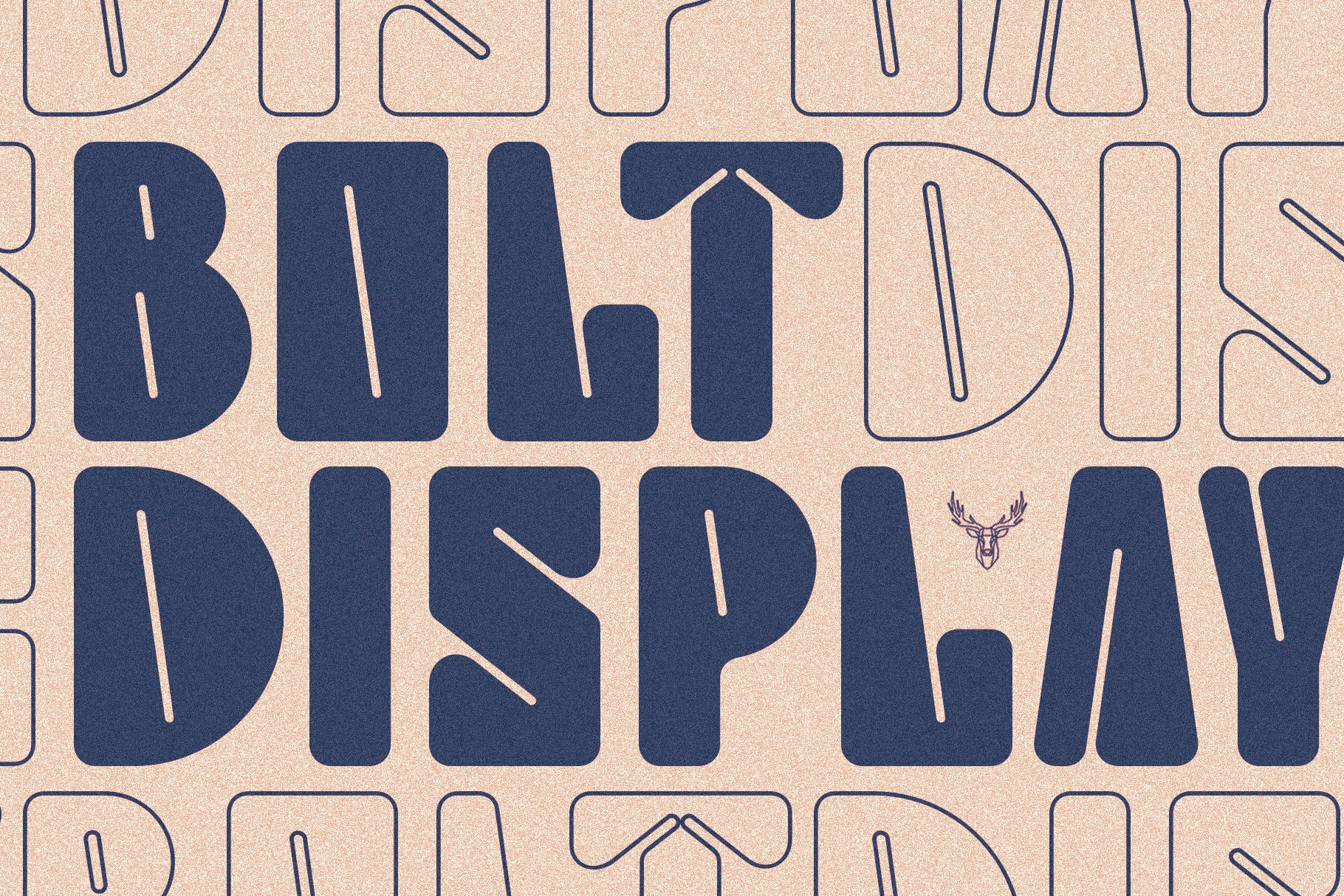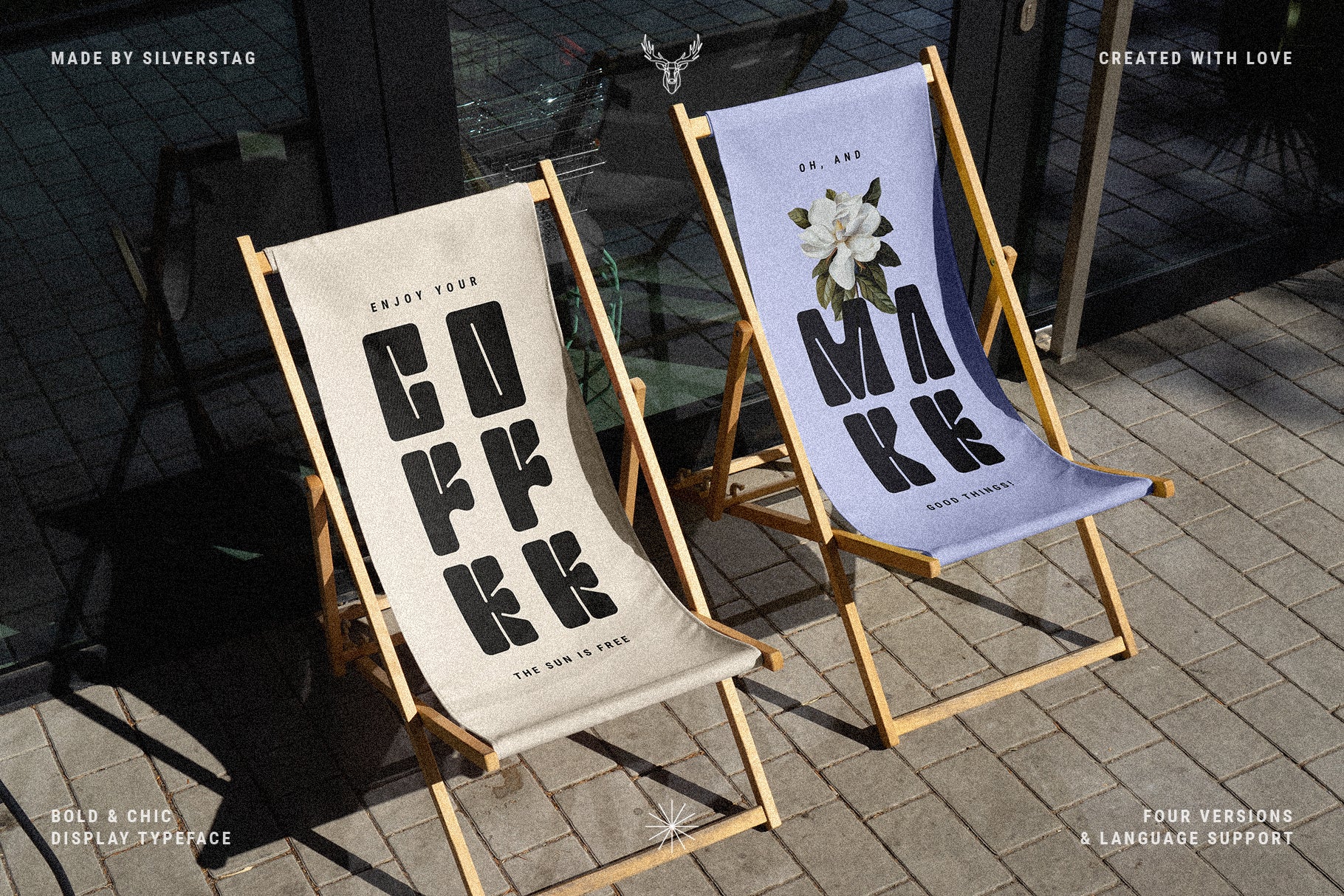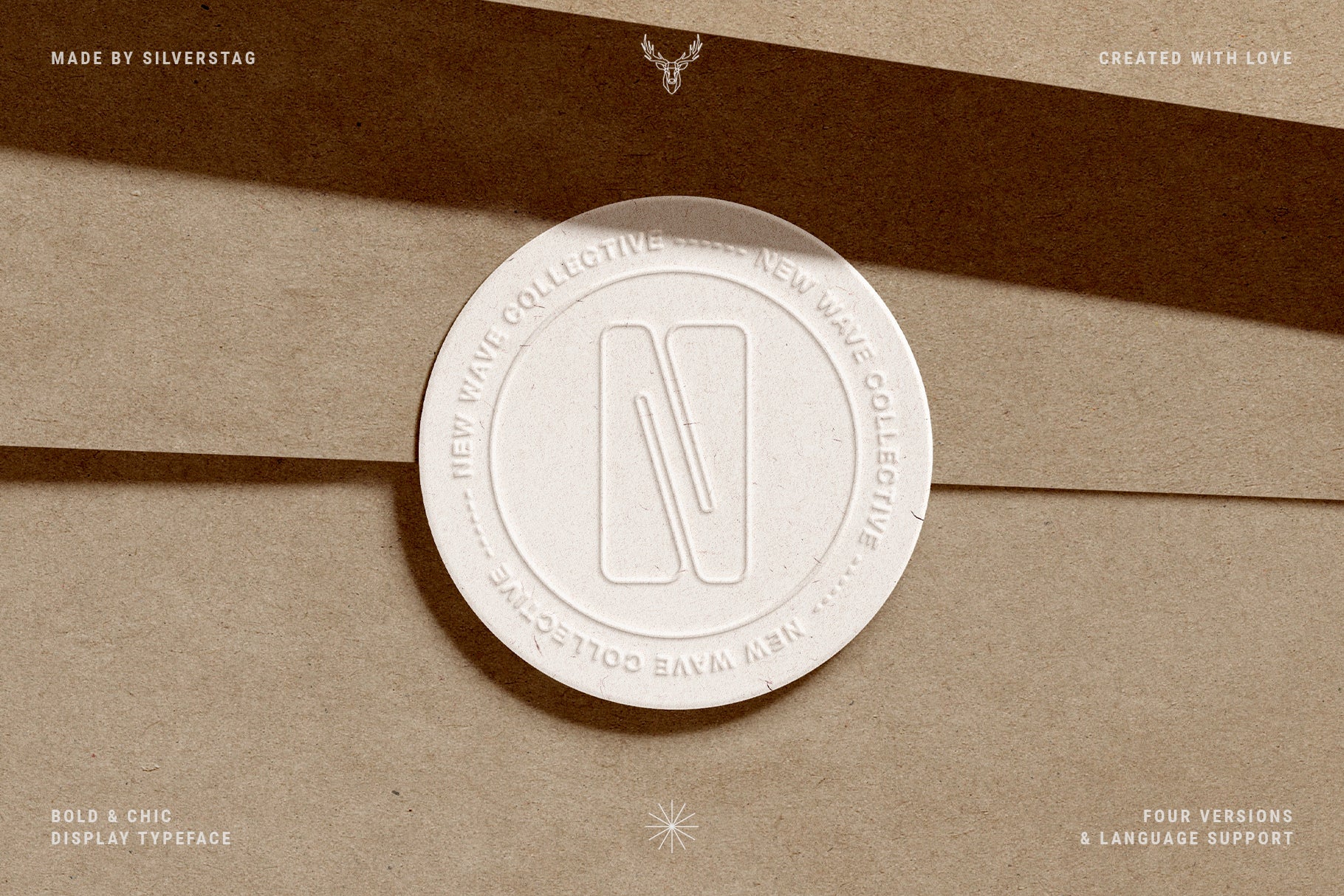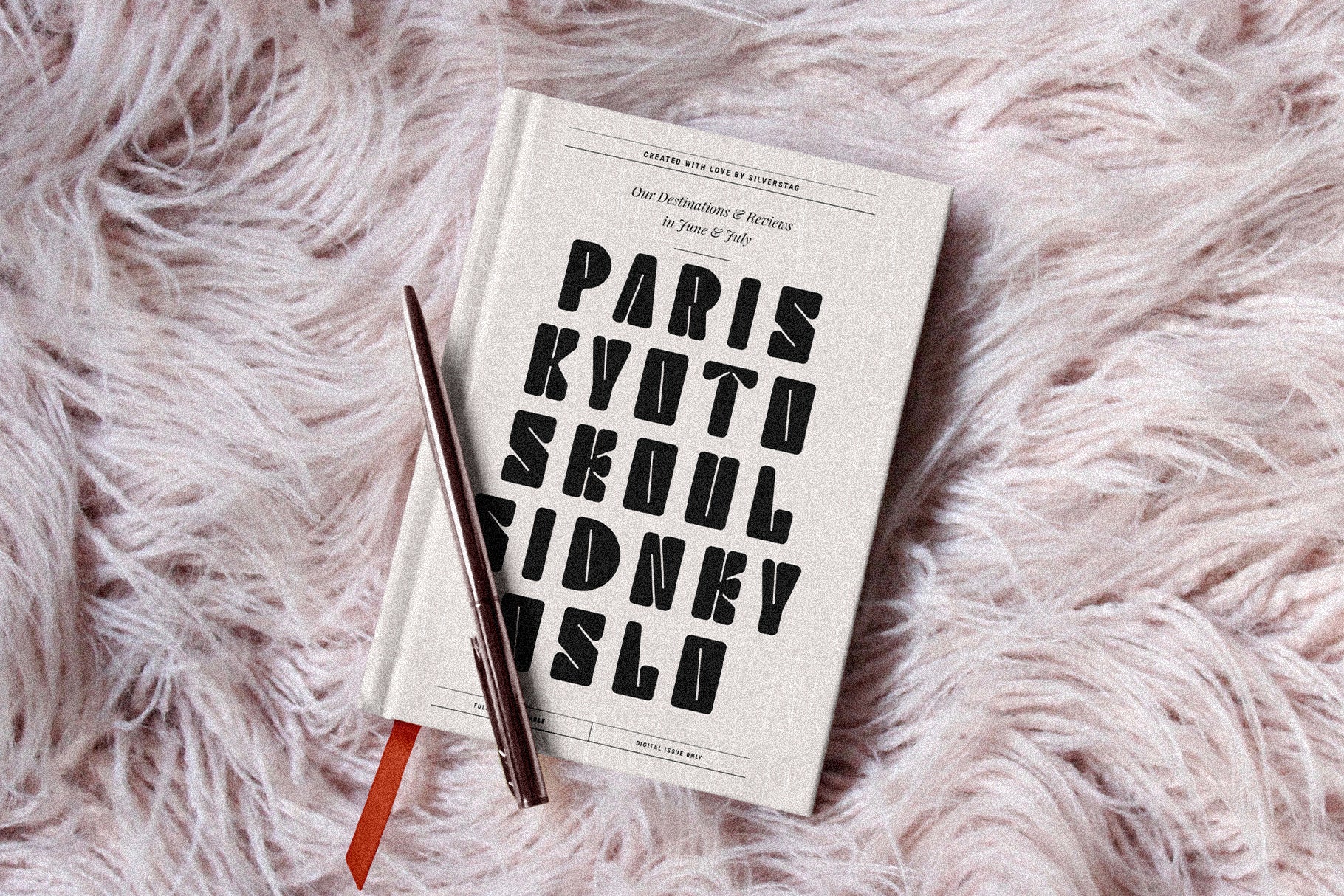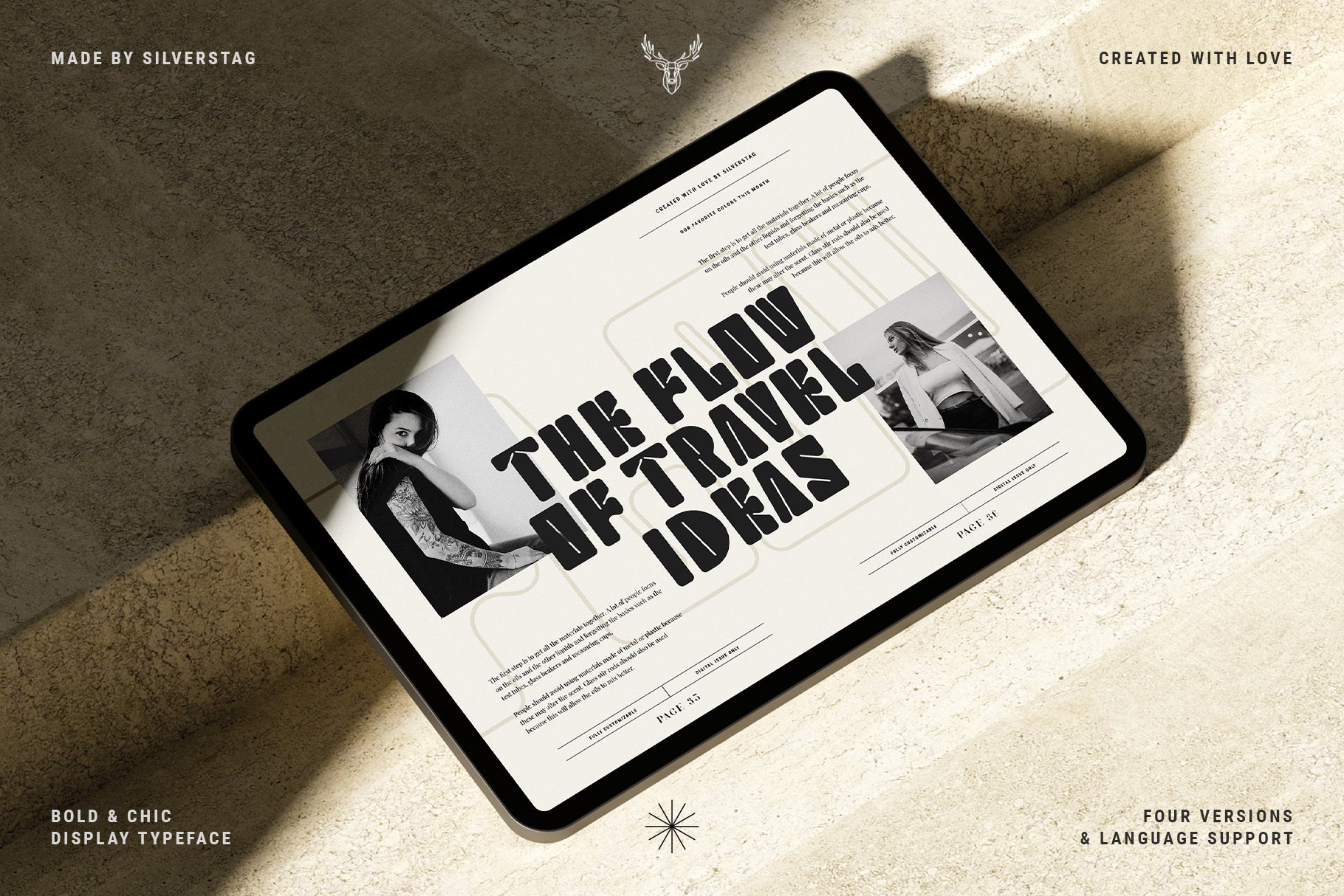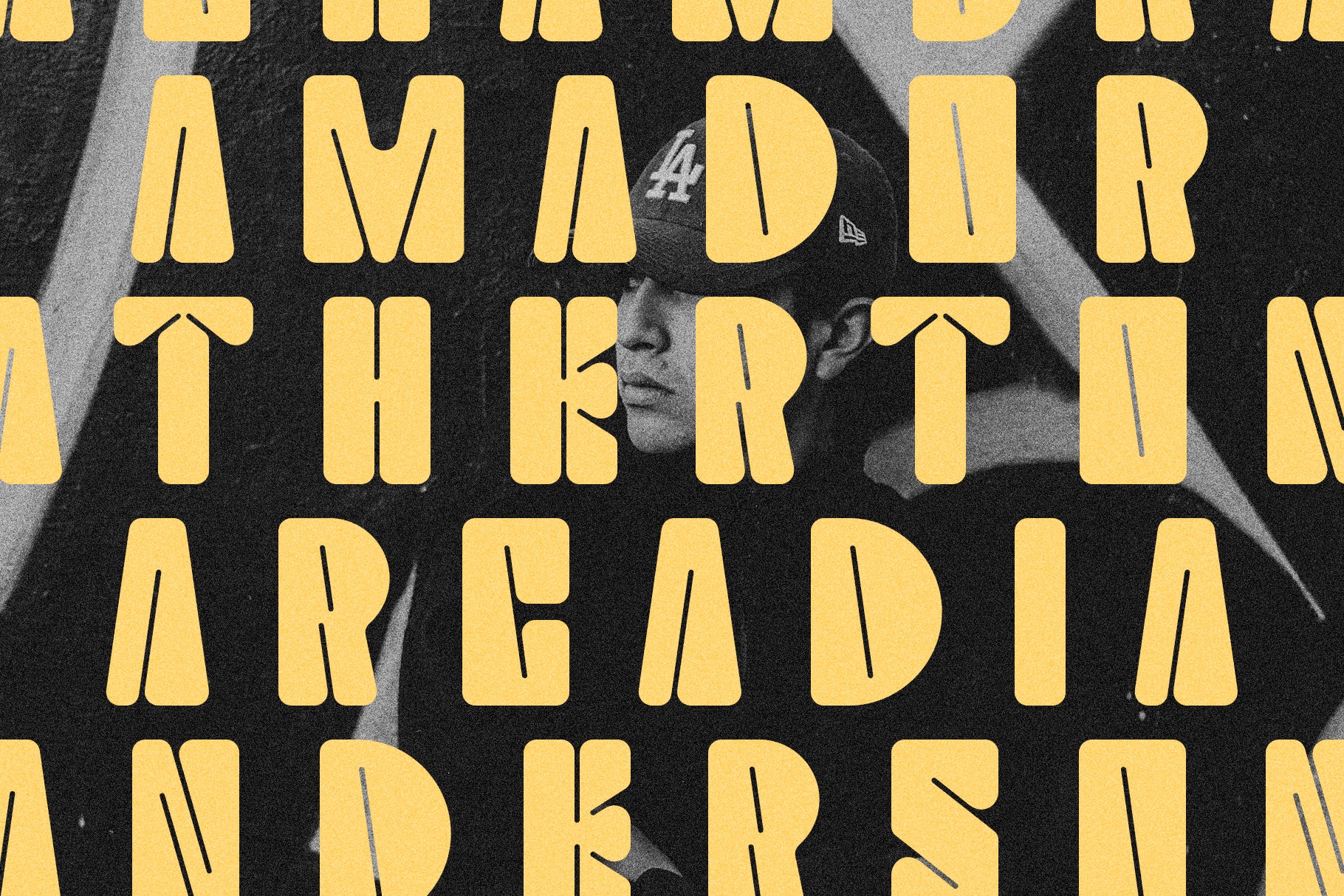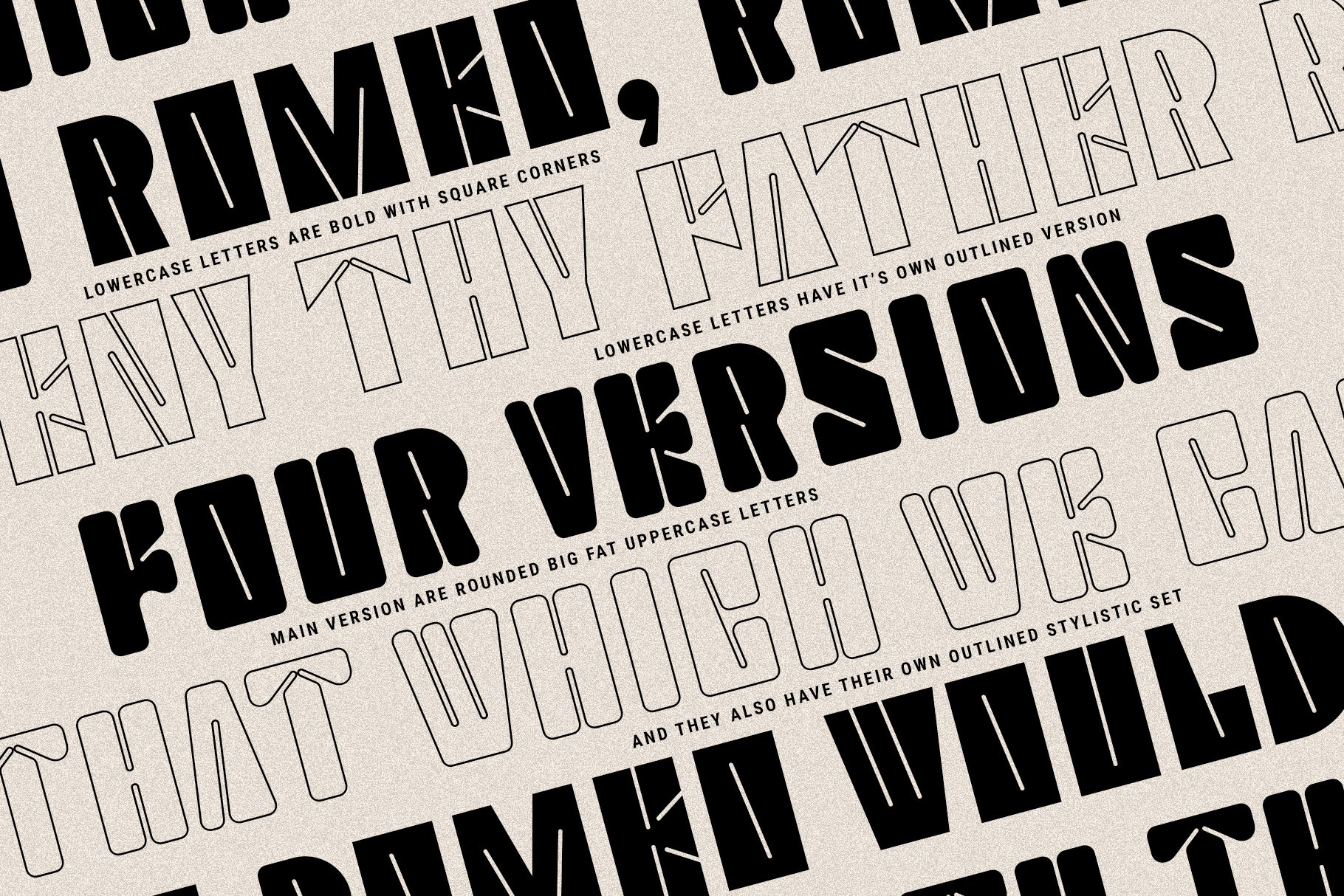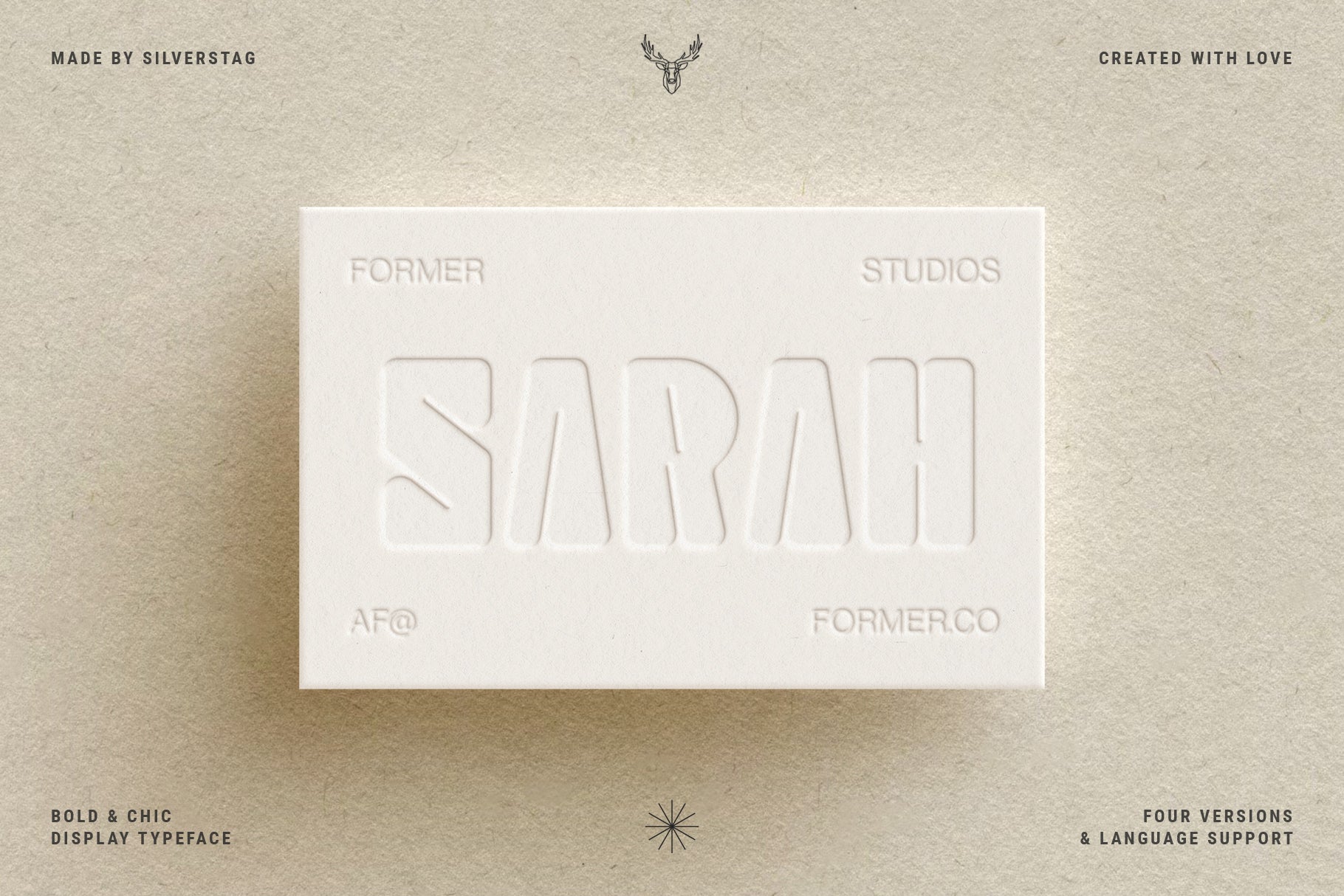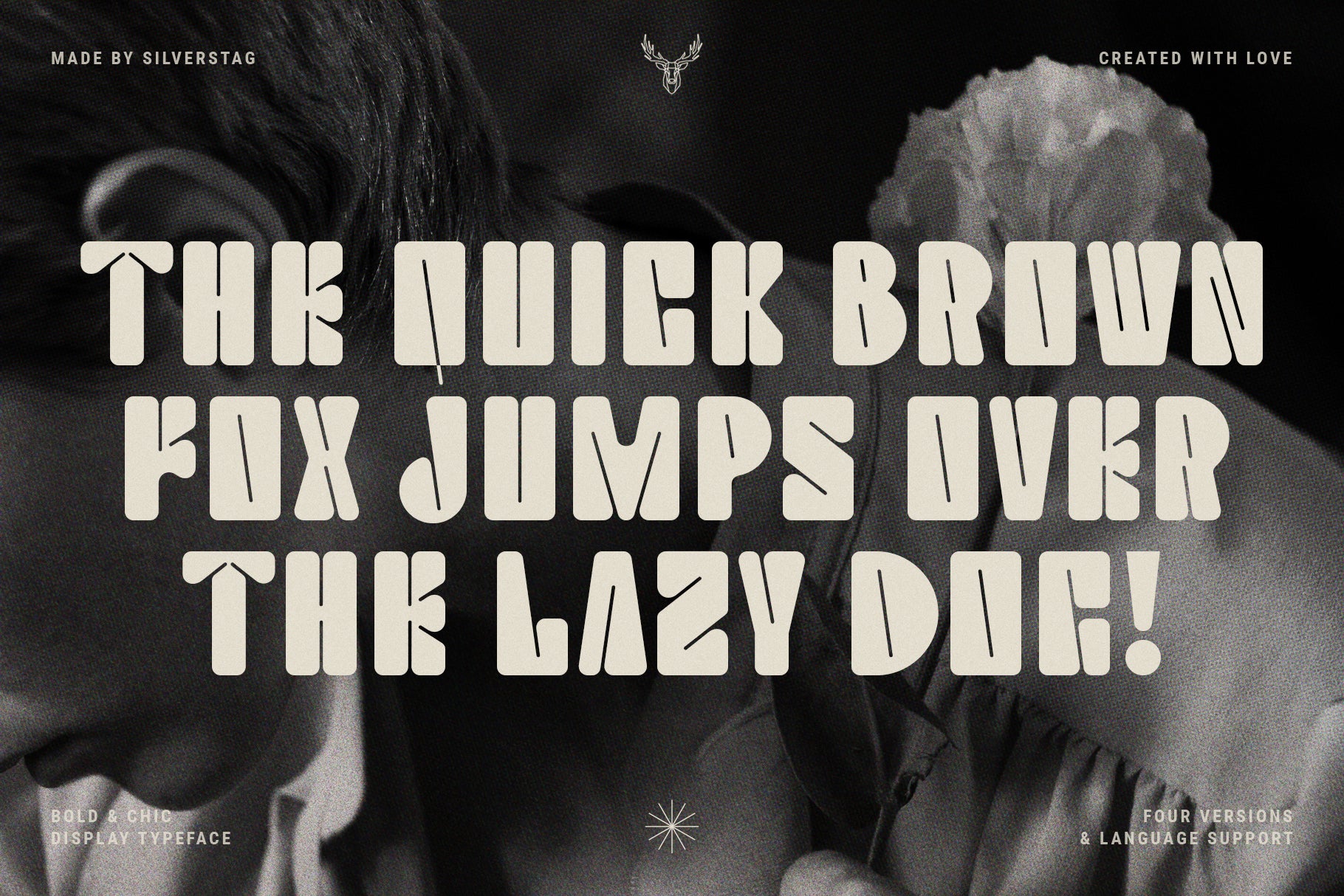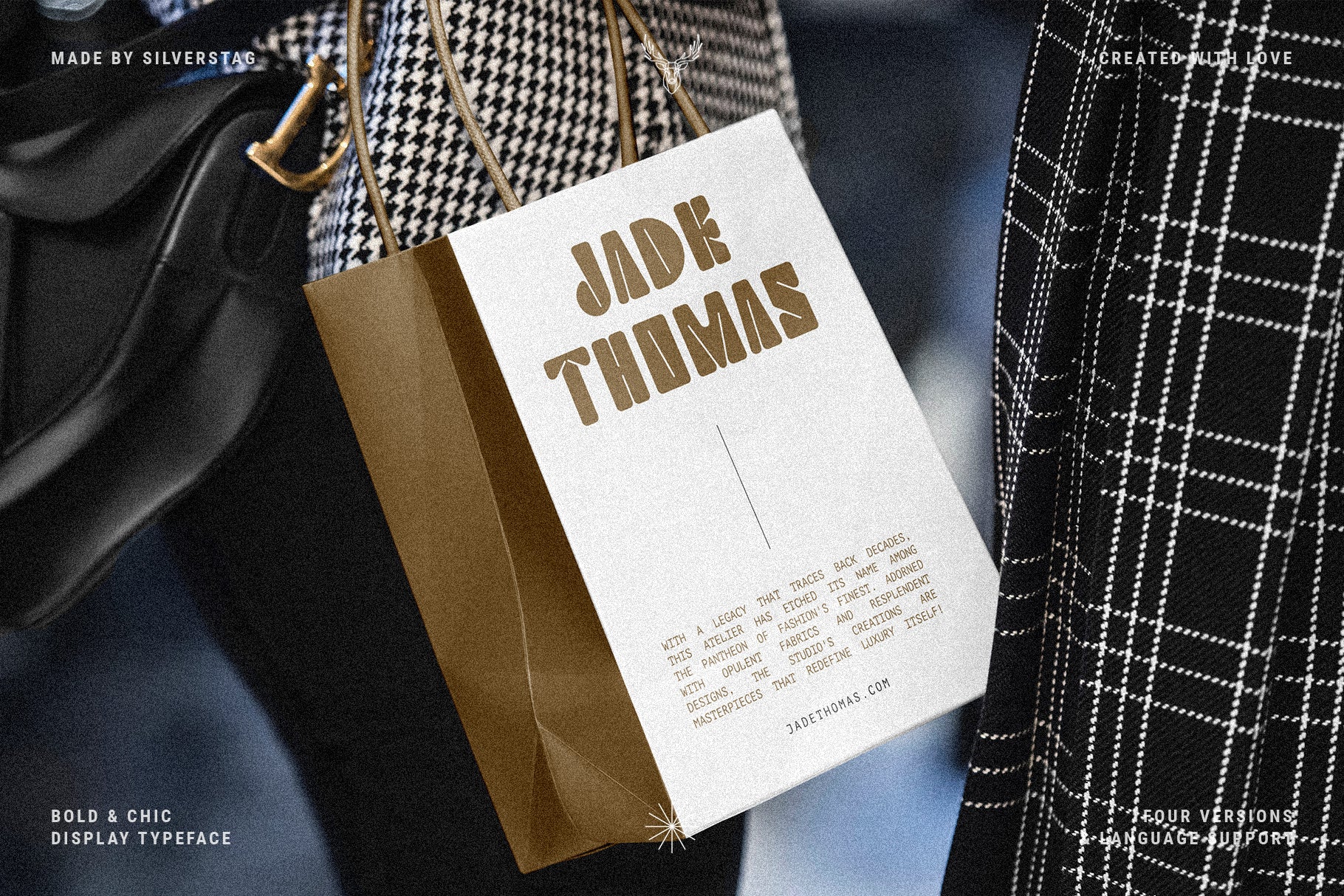
• Bolt Display rounded bold sans hero — "BOLT DISPLAY" in navy caps on a peach textured background with ghosted outlined lettering behind, introduced as a bold display typeface.
• Two deckchairs set in Bolt Display outside a cafe — a cream seat reading "Enjoy your coffee, the sun is free" and a lilac seat reading "Oh, and make good things" with a magnolia graphic — outdoor branding mockup.
• Embossed circular paper seal reading "New Wave Collective" around a large N monogram, set in Bolt Display on kraft paper — branding mockup.
• "Book Club" set in cream Bolt Display caps over an open book with an orange, with "Organized by Claire, Estd 2018" details — book club branding mockup.
• Travel journal on a blush fur rug with a pen, its cover stacking "Paris, Kyoto, Seoul, Sidney, Oslo" in black Bolt Display — book cover mockup.
• Tablet on stone showing an editorial layout headed "The Flow of Travel Ideas" in black Bolt Display, with black-and-white photos — digital mockup.
• Surnames "Amador, Atherton, Arcadia, Anderson" tiled in yellow Bolt Display over a black-and-white photo of a man in a baseball cap — type specimen.
• Bolt Display four-version specimen — a "Romeo, Romeo" Shakespeare quote in filled and outlined caps, annotated to show the main rounded set and its outlined stylistic set.
• Embossed business card reading "Former Studios, Sarah" set in Bolt Display on a cream textured surface — branding mockup.
• The pangram "The quick brown fox jumps over the lazy dog!" set in cream Bolt Display caps over a black-and-white photo — type specimen.
• "Film Makers" set in cream Bolt Display over a moody photo of a man operating a film camera — poster mockup.
• Kraft paper shopping bag printed "Jade Thomas" in gold Bolt Display, hanging against a houndstooth garment — retail packaging mockup.
• "Flow" repeated in navy Bolt Display, filled and outlined, over a black-and-white photo of two dancers against a wall — type-as-texture layout.
• "Skin" repeated in cream Bolt Display, filled and outlined, over a warm sepia textured background with light streaks — type specimen.
• "Kitschy" set in cream Bolt Display over a black-and-white photo among leaves, with "Modern Bold Sans Font" and "your perfect flower shop, Estd 2018" — branding mockup.
• Bolt Display four-version breakdown on blush — the main rounded filled caps, its outlined set, a square-cornered lowercase version and its outlined stylistic set, numbered 01 to 04.
Bolt Display - Rounded Bold Sans Serif
Bolt Display is a bold sans serif font with soft rounded corners and a confident voice. Designed to stand out in headlines, posters, logos, and bold branding, it blends modern curves with structural strength—perfect for designers looking to make a memorable impression.
The uppercase set features clean, rounded letterforms that...
Bolt Display is a bold sans serif font with soft rounded corners and a confident voice. Designed to stand out in headlines, posters, logos, and bold branding, it blends modern curves with structural strength—perfect for designers looking to make a memorable impression.
The uppercase set features clean, rounded letterforms that feel warm and approachable, while the lowercase characters offer sharper corners for a touch of contrast and edge. Both styles come with outlined stylistic sets, giving you the flexibility to switch between filled and outline styles depending on your project’s tone and personality.
With over 430 glyphs, multilingual support, and creative alternates, Bolt Display is more than just a display font—it’s your visual statement. Use it to create logos with flair, headlines that grab attention, and branding that feels contemporary, friendly, and confident.
Whether you’re designing packaging, apparel graphics, website hero text, or bold social media content, Bolt Display gives your words a voice that’s clear, playful, and full of personality.
Embossed circular paper seal reading "New Wave Collective" around a large N monogram, set in Bolt Display on kraft paper — branding mockup.
Travel journal on a blush fur rug with a pen, its cover stacking "Paris, Kyoto, Seoul, Sidney, Oslo" in black Bolt Display — book cover mockup.
Surnames "Amador, Atherton, Arcadia, Anderson" tiled in yellow Bolt Display over a black-and-white photo of a man in a baseball cap — type specimen.
Embossed business card reading "Former Studios, Sarah" set in Bolt Display on a cream textured surface — branding mockup.
"Film Makers" set in cream Bolt Display over a moody photo of a man operating a film camera — poster mockup.
"Flow" repeated in navy Bolt Display, filled and outlined, over a black-and-white photo of two dancers against a wall — type-as-texture layout.
"Kitschy" set in cream Bolt Display over a black-and-white photo among leaves, with "Modern Bold Sans Font" and "your perfect flower shop, Estd 2018" — branding mockup.
Two deckchairs set in Bolt Display outside a cafe — a cream seat reading "Enjoy your coffee, the sun is free" and a lilac seat reading "Oh, and make good things" with a magnolia graphic — outdoor branding mockup.